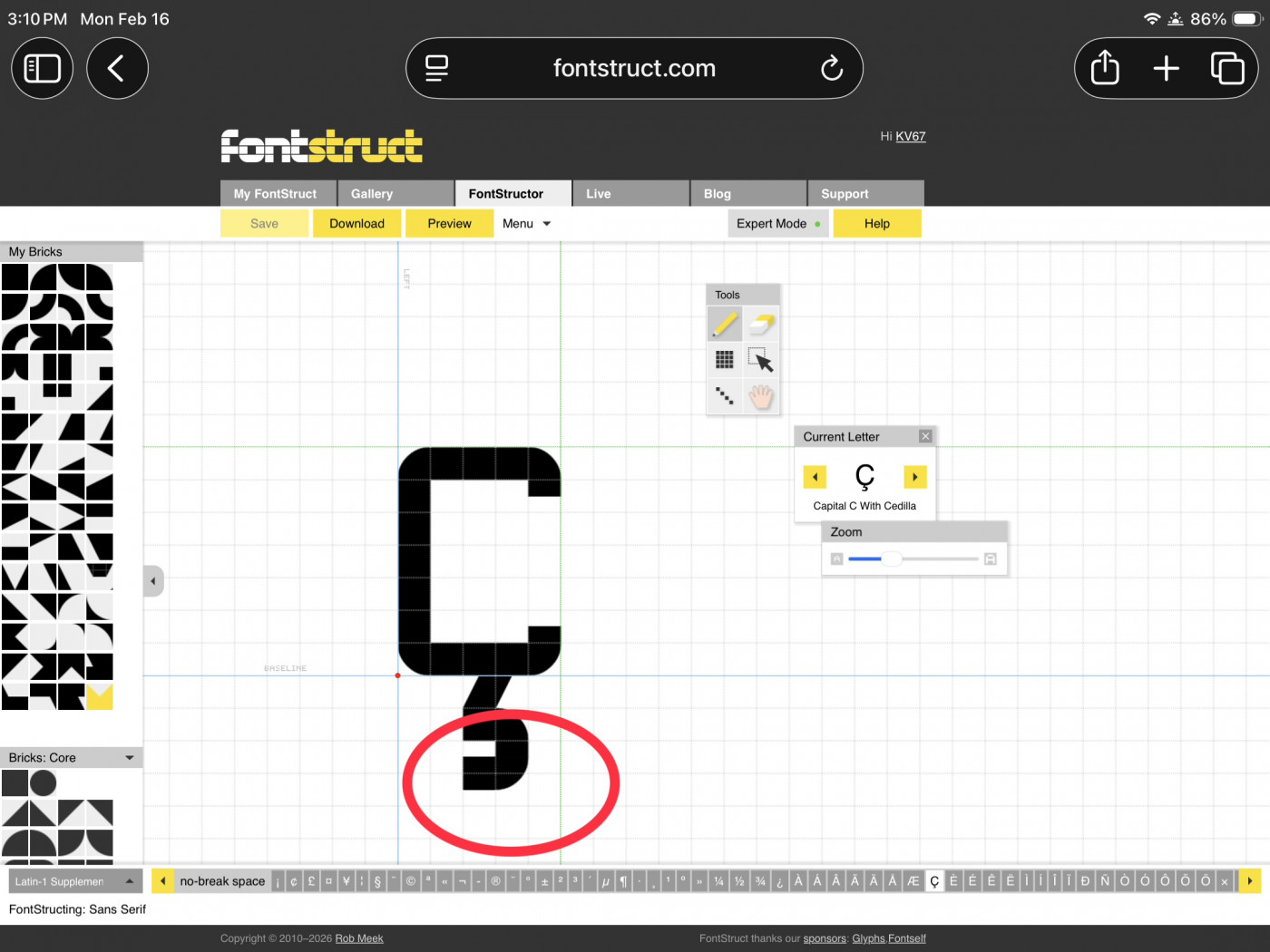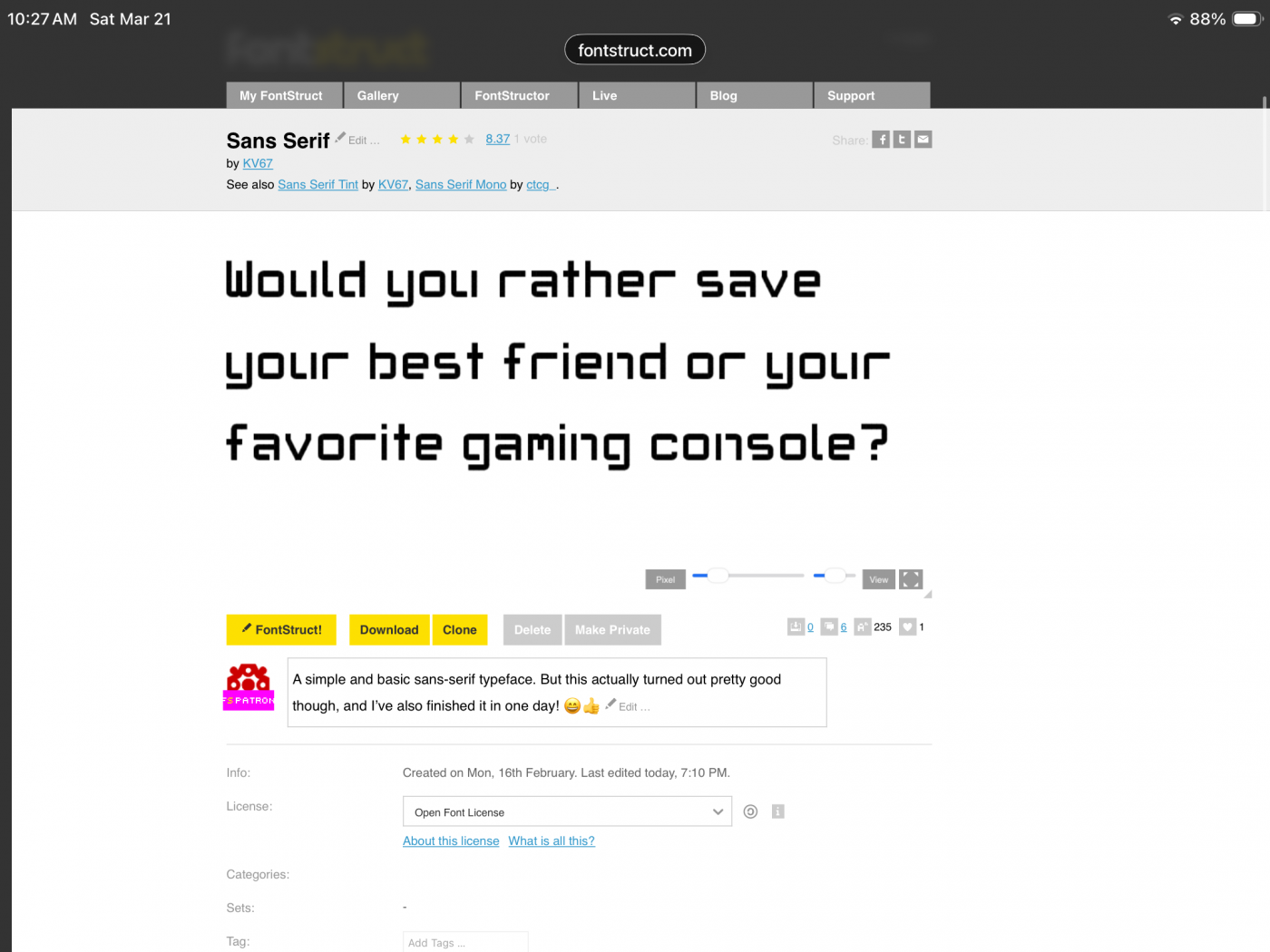
• A simple and basic sans-serif typeface. But this actually turned out pretty good though, and I’ve also finished it in one day! 😄👍
This font may look simple, but it uses a lot of bricks (as you can see), and there is some nudging.
The example shows nudging on the C with cedilla.
I found a stray brick in this font.
I'm sorry ctcg_, but I did'nt notice and couldn't find it so it may take a while to delete, but everyone makes mistakes.
Found the stray bricks!
KV67, I found the stray bricks! (Image above)
UPDATE Deleted both stray bricks